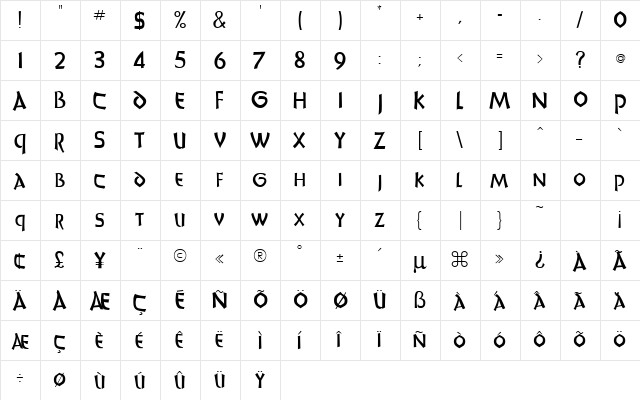
Uncials Regular
Design Context for Uncials Typeface
Uncials takes a measured approach to typography — its balanced proportions and neutral character make it a reliable workhorse for both digital and print work.